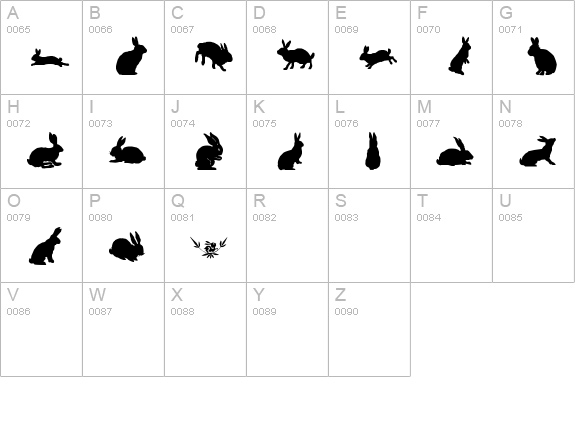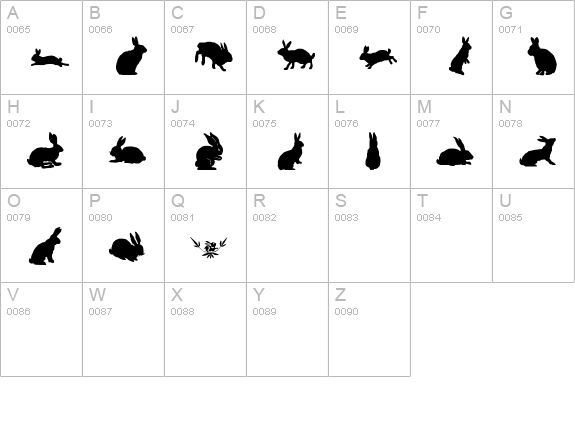
lprabbits1 Font Details
The lprabbits1 font is a charming and whimsical typeface that exudes playfulness and creativity. With its unique design and quirky details, this font is perfect for adding a touch of fun to your projects. Whether you're working on a children's book, greeting cards, or social media graphics, lprabbits1 will bring a sense of joy and light-heartedness to your designs. Best of all, lprabbits1 is available for free download at FontsMarket.com. This means you can easily access this delightful font without any cost, making it a fantastic option for designers looking to add a touch of whimsy to their work. Don't miss out on the opportunity to enhance your projects with the lprabbits1 font - download it today and let your creativity soar!